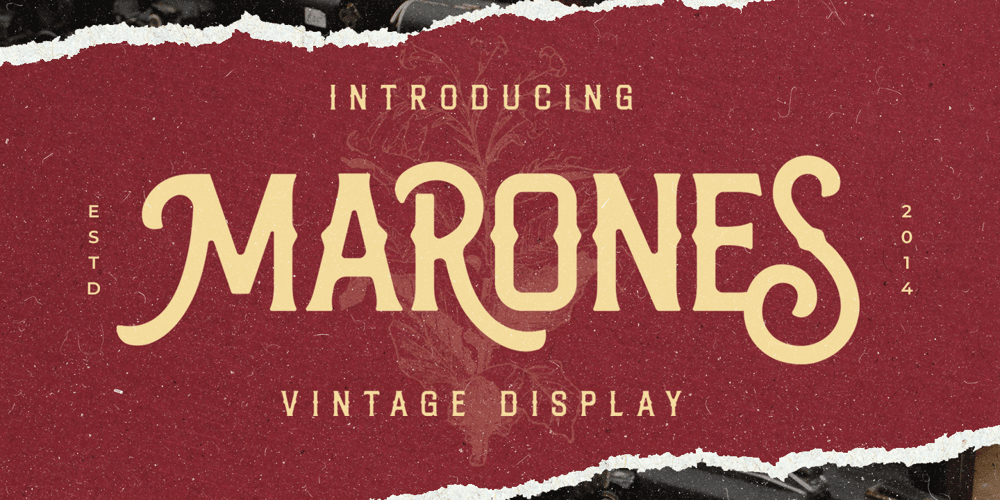
Marones Font Family was designed by Ahmad Ramzi Fahruddin and published by Arterfak Project. Marones contains 1 styles and family package options. Complete your vintage style with Marones font!Marones is a serif font with inky effect and spurs on the letterforms. Inspired by old school garage and vintage logo, Marones visualize a quite strong look so that’s perfect for any display such as packaging, bottle, headline, logo, apparel, posters, stickers, craft projects and more!Marones is an all-caps font equipped with a Stylistic set and multilingual support that you can mix and match the letters to ease your design project. Fonts featured : Uppercase Smallcaps Numbers Symbols Punctuation Stylistic alternates Stylistic set 01-04 Thank you for watching!Ramz